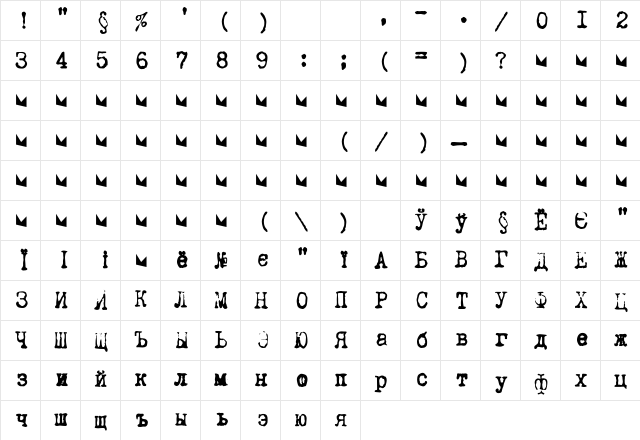
Samizdat Regular
Design Context for Samizdat Typeface
Samizdat takes a measured approach to typography — its balanced proportions and neutral character make it a reliable workhorse for both digital and print work.